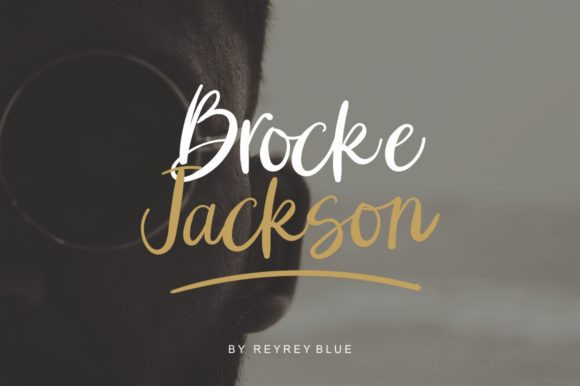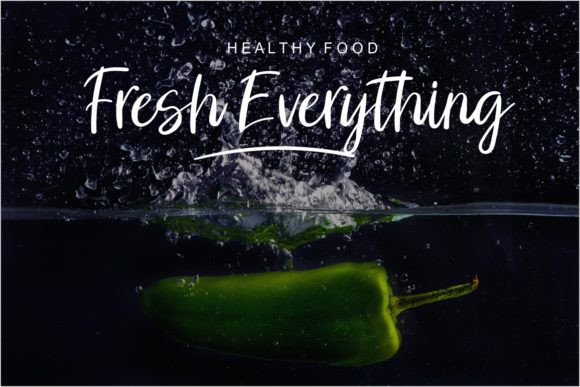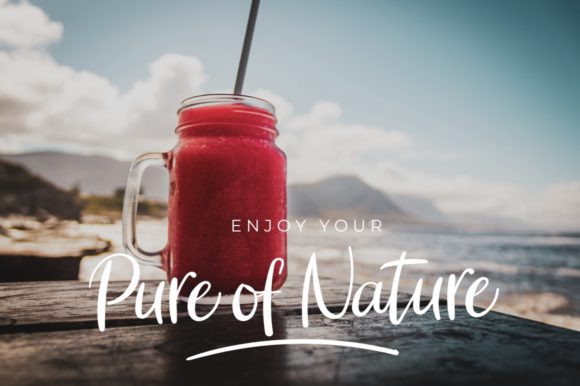
Brocke Jackson Font
Brocke Jackson FontBrocke Jackson is a stylish and incredibly elegant script font. It looks stunning on wedding invitations, thank you cards, quotes, greeting cards, logos, business cards and every other design which needs a handwritten touch.
This font is PUA encoded which means you can access all of the glyphs and swashes with ease! It features a varying baseline, smooth lines, gorgeous glyphs and stunning alternates.